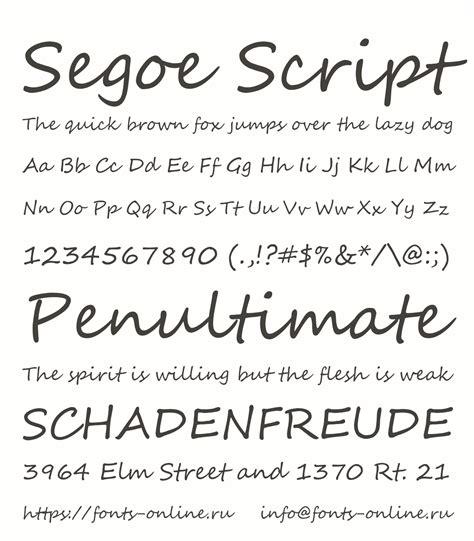
Segoe Script Font Generator . Web segoe script font family was designed by carl crossgrove, steve matteson, brian allen and published by microsoft corporation. Dlng:'cyrl', 'grek', 'latn' slng:'cyrl', 'grek',.
You can use the following tool to generate text graphics based on your selection of colors, text effects and sizes using script fonts in seconds. Copyright © 2016 microsoft corporation. Segoe script contains 2 styles. M+ 2p by m+ fonts. Web segoe script font family was designed by carl crossgrove, steve matteson, brian allen and published by microsoft corporation. You can then save the image, or. The segoe script (2 fonts) contains stylish handwriting script fonts. The letterforms in segoe script feature extended strokes. Fog sans by kineticplasma fonts. Web  segoe script bold:
You can then save the image, or. M+ 2p by m+ fonts. Web create text graphics with script fonts. Web  segoe script bold: Copyright © 2016 microsoft corporation. The letterforms in segoe script feature extended strokes. Web  segoe script is part of the segoe family of fonts from microsoft. You can then save the image, or. Fog sans by kineticplasma fonts. Dlng:'cyrl', 'grek', 'latn' slng:'cyrl', 'grek',. Web segoe script font family was designed by carl crossgrove, steve matteson, brian allen and published by microsoft corporation.
You can then save the image, or. Web segoe script font family was designed by carl crossgrove, steve matteson, brian allen and published by microsoft corporation. The letterforms in segoe script feature extended strokes. You can use the following tool to generate text graphics based on your selection of colors, text effects and sizes using script fonts in seconds. Fog sans by kineticplasma fonts. Dlng:'cyrl', 'grek', 'latn' slng:'cyrl', 'grek',. M+ 2p by m+ fonts. Copyright © 2016 microsoft corporation. Web create text graphics with script fonts. The segoe script (2 fonts) contains stylish handwriting script fonts.
Web create text graphics with script fonts. Web  segoe script bold: Dlng:'cyrl', 'grek', 'latn' slng:'cyrl', 'grek',. You can then save the image, or. Web segoe script font family was designed by carl crossgrove, steve matteson, brian allen and published by microsoft corporation. You can use the following tool to generate text graphics based on your selection of colors, text effects and sizes using script fonts in seconds. Copyright © 2016 microsoft corporation. Segoe script contains 2 styles. The letterforms in segoe script feature extended strokes. Fog sans by kineticplasma fonts.
Copyright © 2016 microsoft corporation. Web  segoe script bold: The segoe script (2 fonts) contains stylish handwriting script fonts. Web create text graphics with script fonts. You can then save the image, or. Web  segoe script is part of the segoe family of fonts from microsoft. Segoe script contains 2 styles. M+ 2p by m+ fonts. Fog sans by kineticplasma fonts. Web segoe script font family was designed by carl crossgrove, steve matteson, brian allen and published by microsoft corporation.